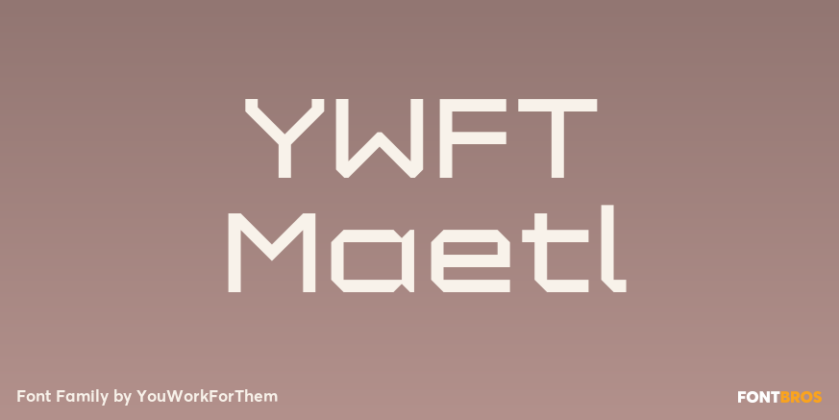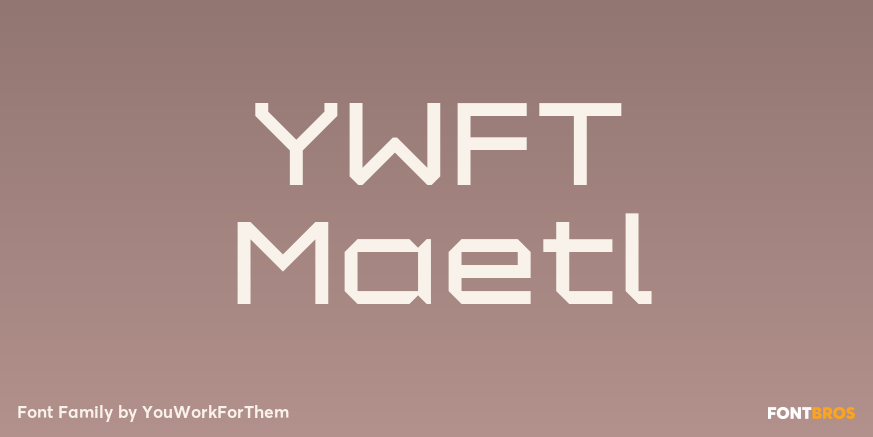
YWFT Maetl
About YWFT Maetl
YWFT Maetl started as an exploration into hand drawing bitmap typefaces. What happens to edges and angles when you draw bitmaps by hand? We wanted to know. The final drawings of YWFT Maetl ended up with minimal serif details on certain letters, and angles…